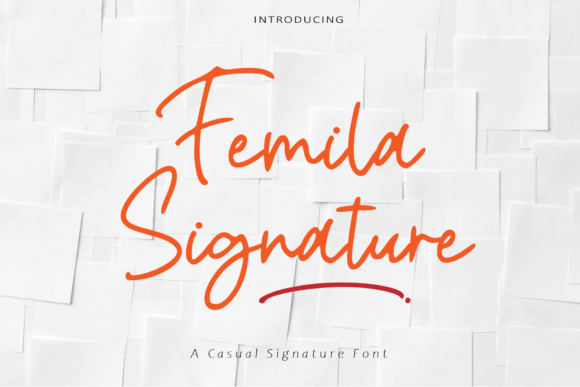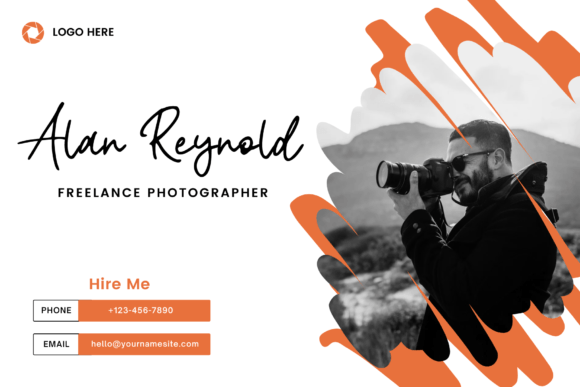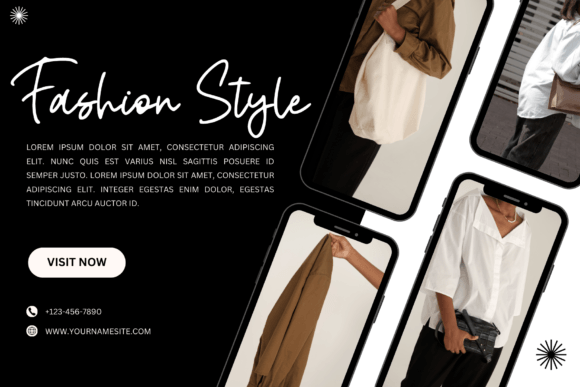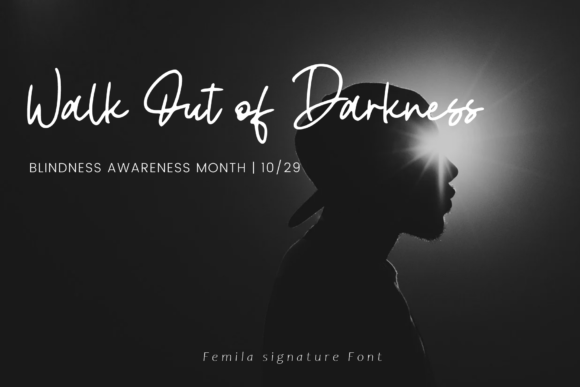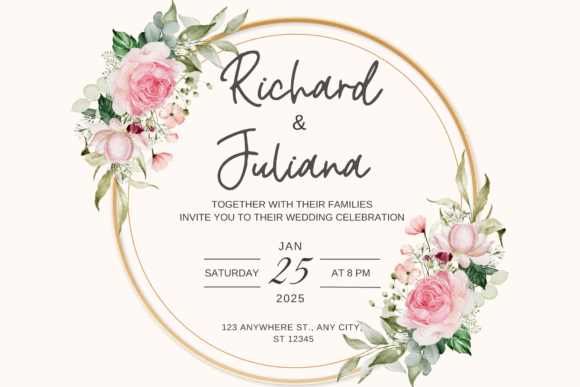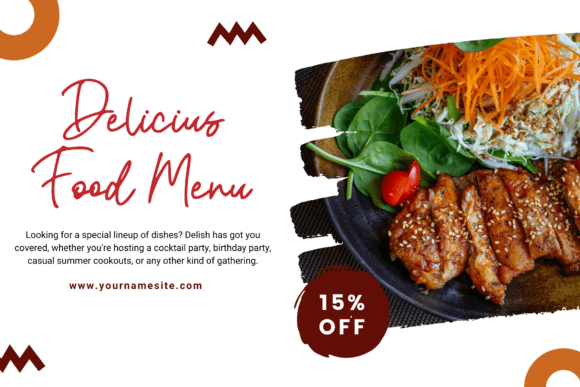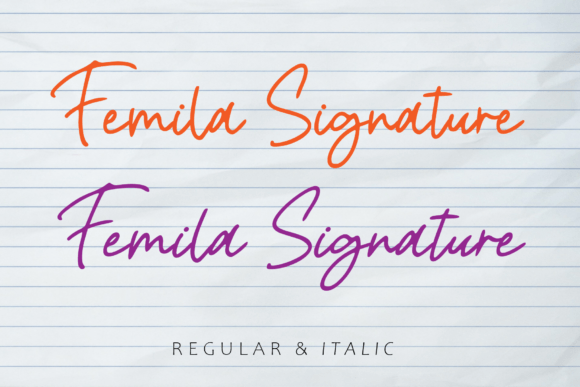
The Art of Handwritten Signatures: A Designer’s Dream
Do you ever find yourself doodling in a notebook, trying to perfect the signature that represents you? For many designers, this is a moment of pure creativity – a chance to let their personality shine through in a simple yet elegant way. And what if you could capture that essence in your designs, making every project feel uniquely yours?
Enter the Femila Signature Font, a beautiful and natural handwriting font created by experts to bring a touch of warmth to your branding projects. Whether you’re working on a wedding design, social media post, or product packaging, this font is the perfect addition to give your work a charming, handwritten feel. With the Femila Signature Font, designers can add a personal touch to their projects, making them stand out in a crowded market.
Femila Signature Font Key Features
- Unique Characteristics: Elegant script and cursive styles, with subtle flourishes and connections between letters
Femila Signature Font Review
I’ve had the chance to work with the Femila Signature Font, and here’s my honest take on it.
- Beautiful and elegant design: The font is stunning and perfect for adding a touch of sophistication to any design project.
- Great for branding and logos: The unique design of the font makes it ideal for creating memorable logos and branding materials.
- May not be suitable for all languages: The font appears to be designed primarily for Latin-based languages, and its compatibility with other languages is unclear.
- Not a massive character set: The font’s character set is limited, which may not be suitable for projects that require a wide range of special characters.
The Femila Signature Font is a beautiful and elegant font that’s perfect for adding a touch of sophistication to any design project. However, its limitations, particularly its compatibility with other languages and limited character set, may make it less suitable for certain projects. Nevertheless, it’s a great choice for branding and logo design, and I would definitely recommend it for those specific applications.
Femila Signature Font: A Practical Application Guide
Getting Started with Femila Signature Font
Tips for Getting the Most Out of Femila Signature Font
To get the most out of Femila Signature Font, use it in combination with other design elements such as images, colors, and shapes. Experiment with different font sizes and styles to create a unique look.
Common Use Cases for Femila Signature Font
Femila Signature Font is commonly used in branding, logos, and marketing materials. It’s also used in digital invitations, social media graphics, and web design.
Alternatives to Femila Signature Font
Great Vibes is a modern, elegant script font ideal for creating a sophisticated and high-end look. It’s perfect for wedding invitations, luxury brand logos, and high-end packaging design.
Comparison to Femila Signature Font: Great Vibes has a more refined and polished look compared to Femila Signature Font, making it suitable for more premium and high-end designs.
Lato is a clean and modern sans-serif font that works well for a wide range of designs, from corporate branding to digital products. It’s highly legible and versatile, making it an excellent choice for body text and headings.
Comparison to Femila Signature Font: Lato has a more straightforward and minimalist look compared to Femila Signature Font, making it suitable for modern and clean designs where readability is key.